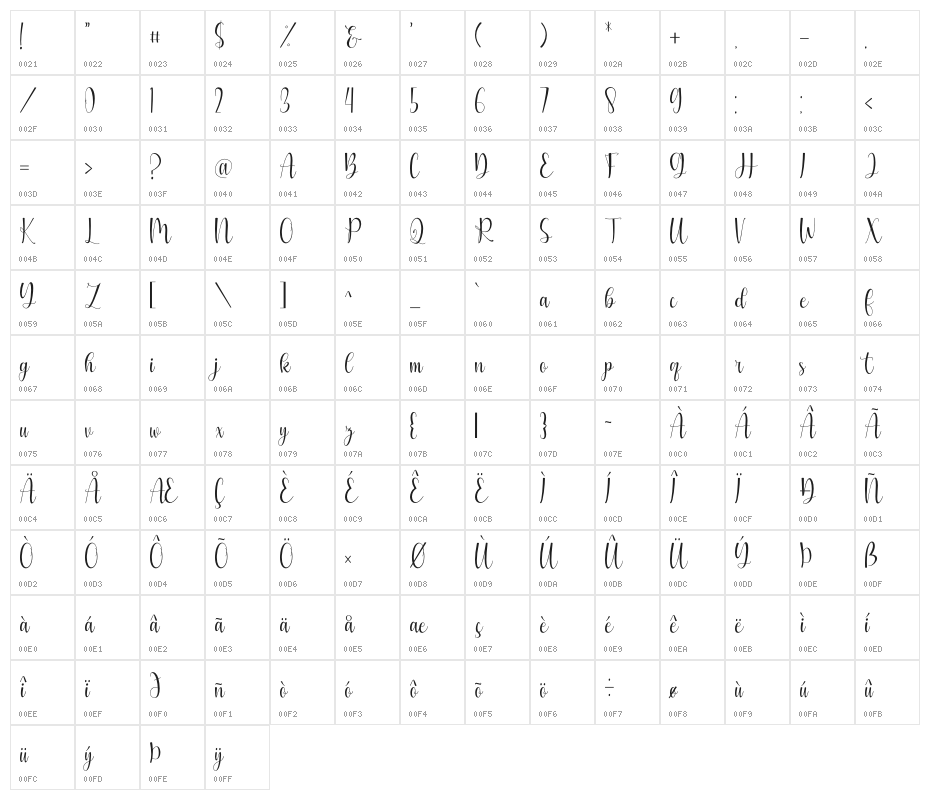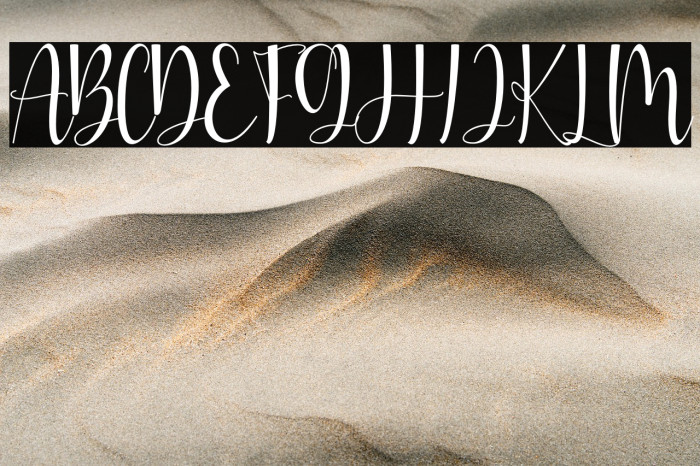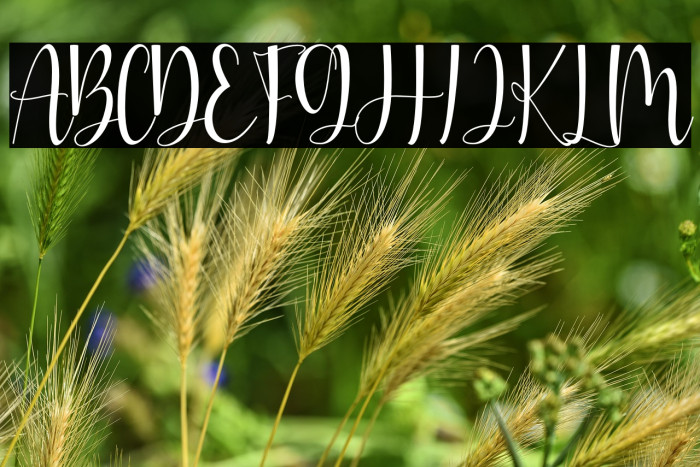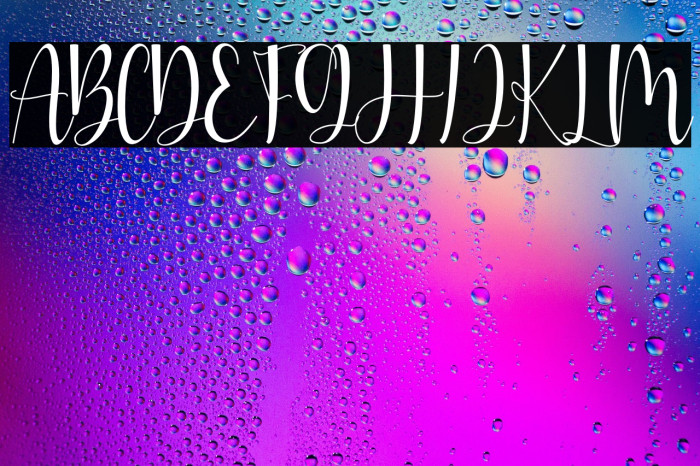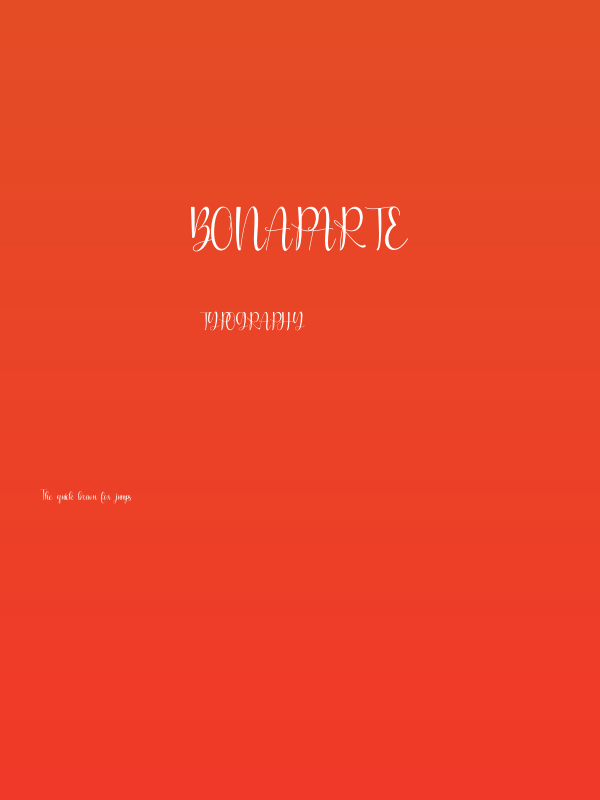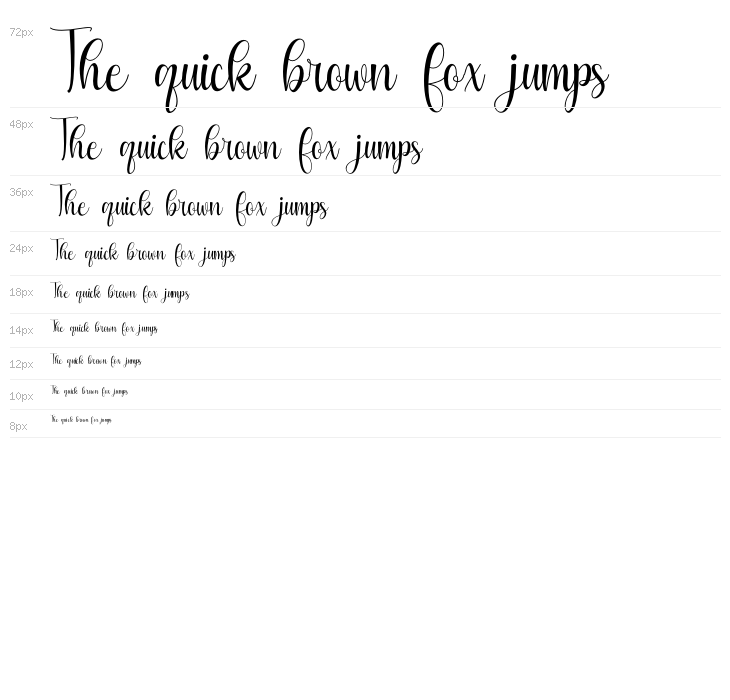
Bonaparte Font
Bonaparte Description
This font exudes elegance and sophistication with its flowing, cursive style. The letters are intricately designed with a high degree of flourish, making it ideal for decorative purposes. Each character is crafted with a sense of movement, giving the text a dynamic and lively appearance. The uppercase letters are particularly ornate, featuring extended loops and swashes that add a touch of grandeur. The lowercase letters maintain a consistent style, complementing the uppercase with their own subtle curves and embellishments. Numbers and special characters are designed to match the overall aesthetic, ensuring a cohesive look across all text elements. This font is perfect for projects that require a touch of elegance and style, such as wedding invitations, high-end branding, or artistic posters.
| Proposed Projects | Wedding invitations, luxury branding, artistic posters, greeting cards. |